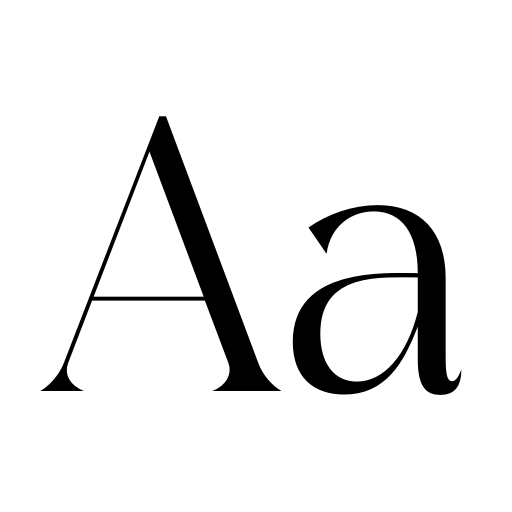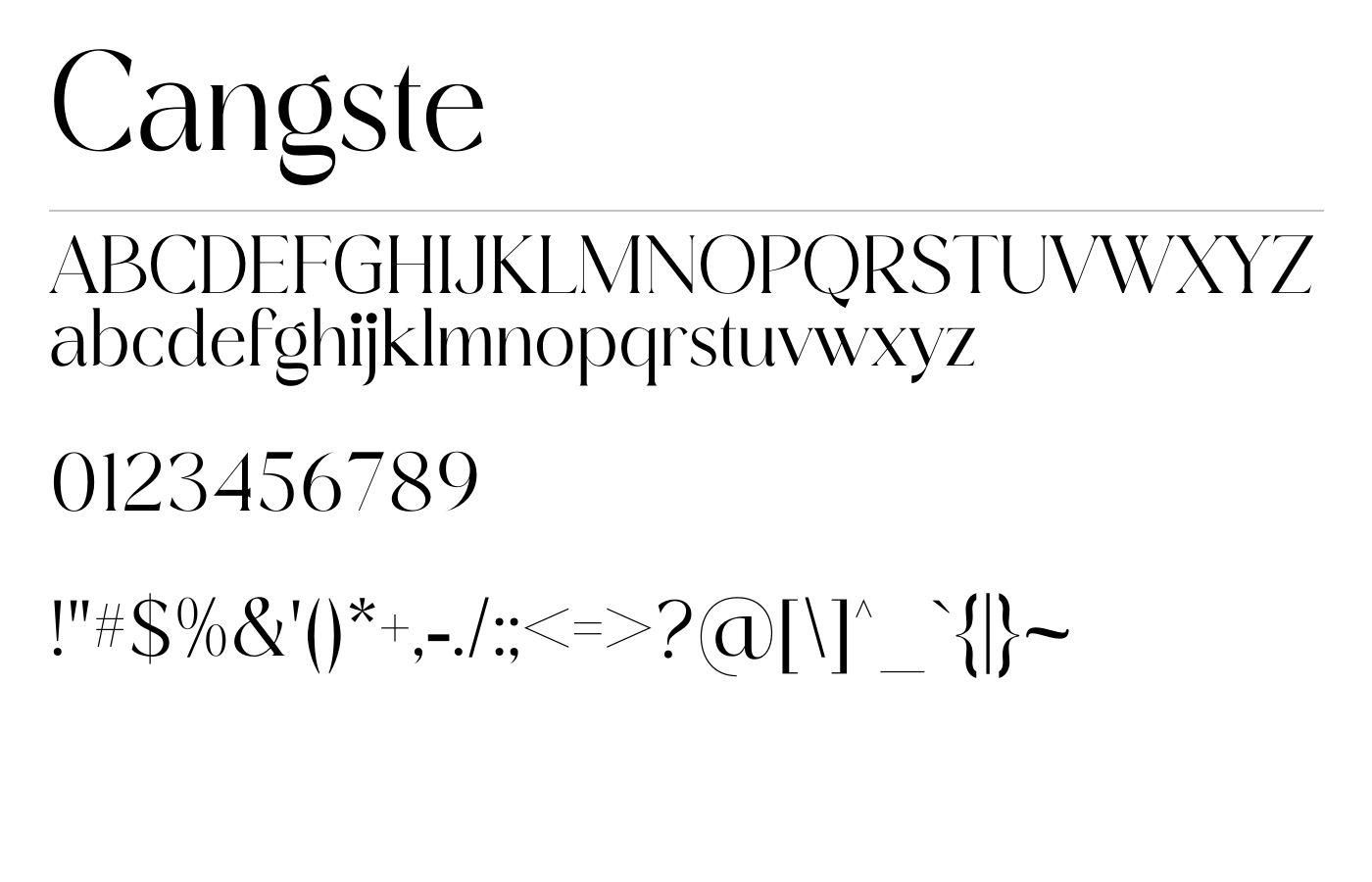
Cangste is a refined serif font characterized by its high contrast between thick and thin strokes and delicate, bracketed serifs that give it an elegant, sophisticated appearance. With its tall x-height, unique letter details like the single-story 'g' and stylized 'Q' tail, and a crisp, clean structure, it works beautifully for luxury branding, editorial headlines, and upscale packaging. This font’s classic yet modern feel makes it perfect for projects that seek to convey timeless elegance and high-end style.
Cangste Font
About Cangste Font